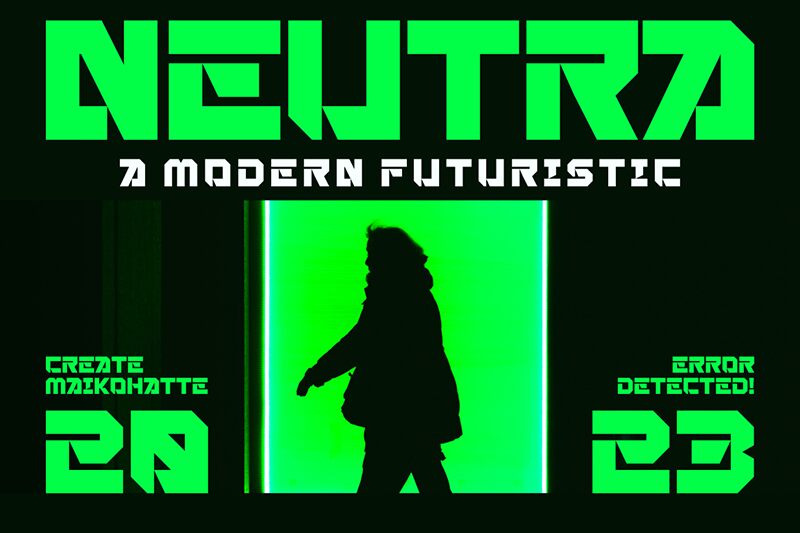
Neutra
Neutra font, by Gilang Ternadho, is a structured bold futuristic display typeface with an expanded width. The font has angular and geometric shapes that contribute to its minimalistic design. Visualize laser cut edges along short (and tall letters) giving the font an even more distinctive style.